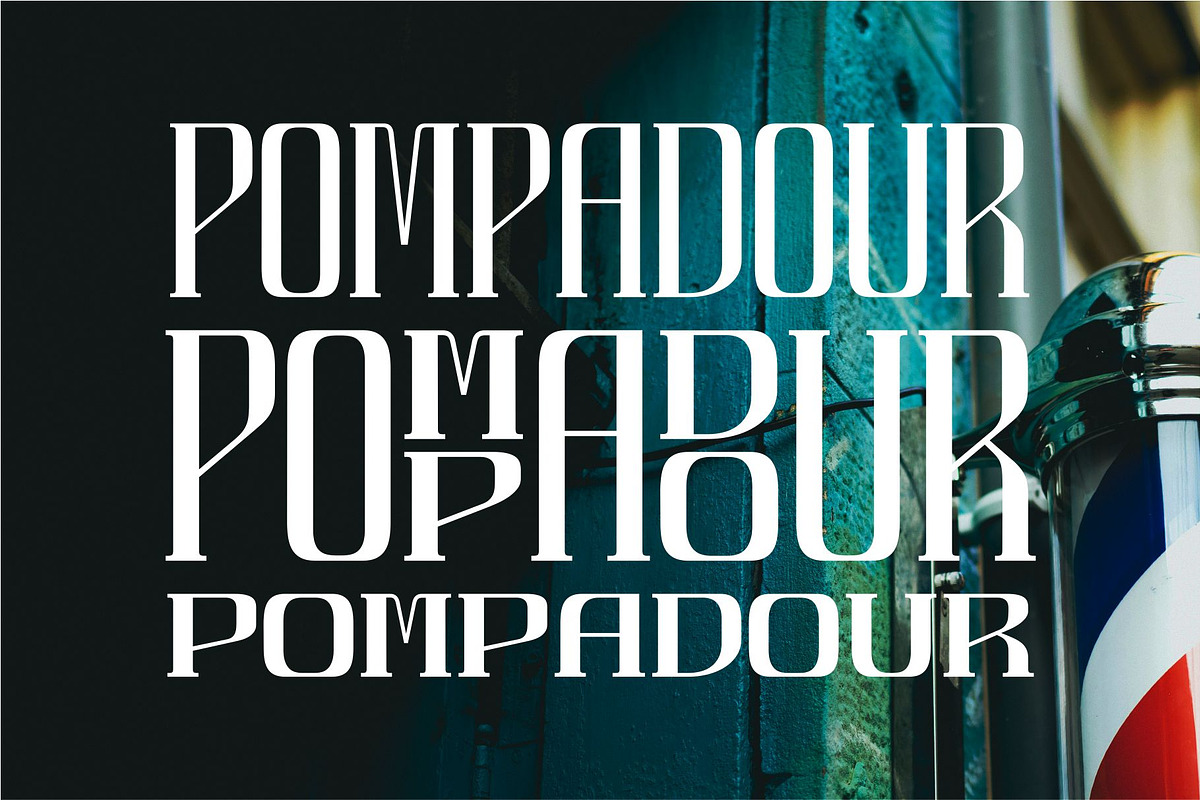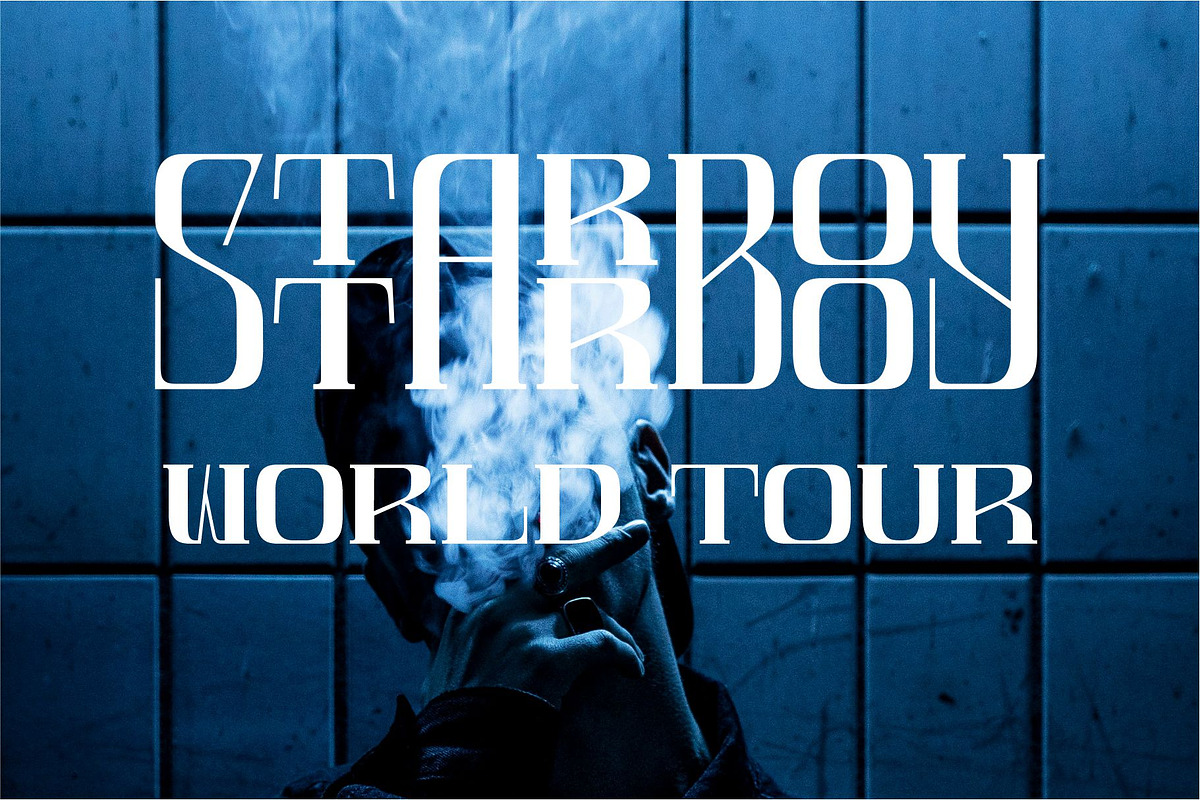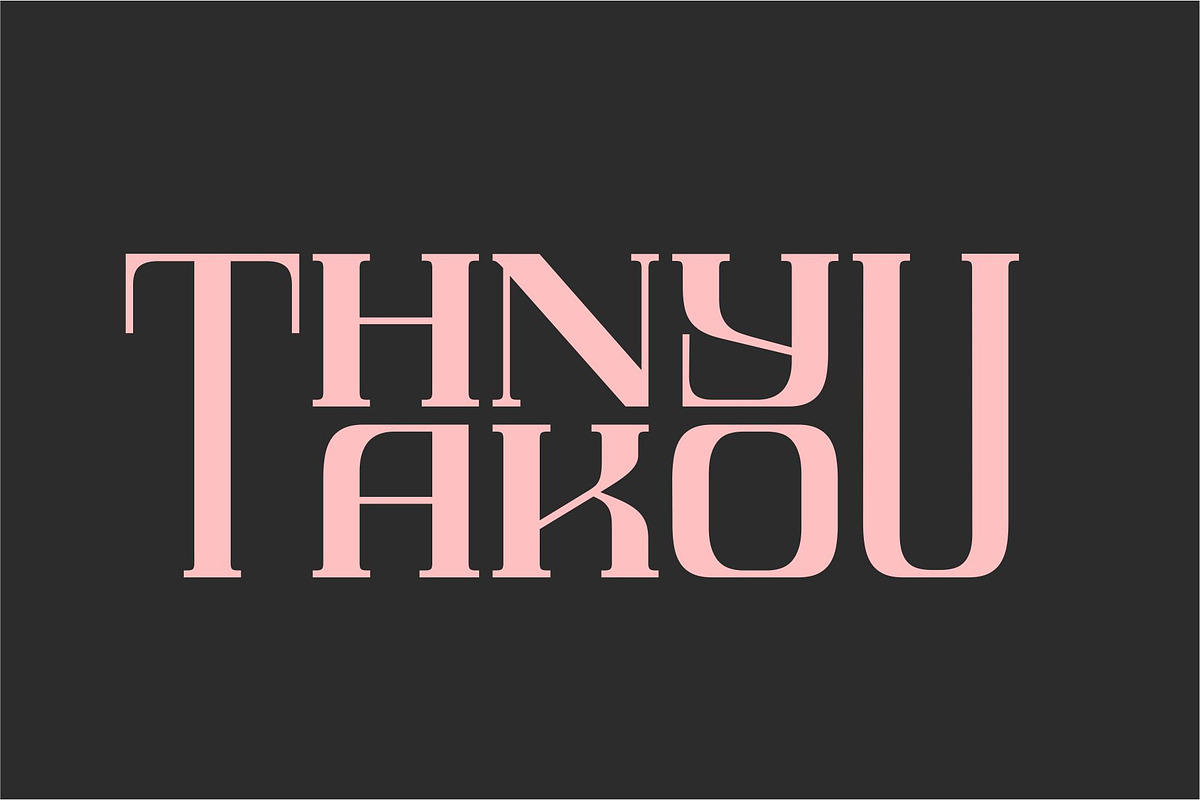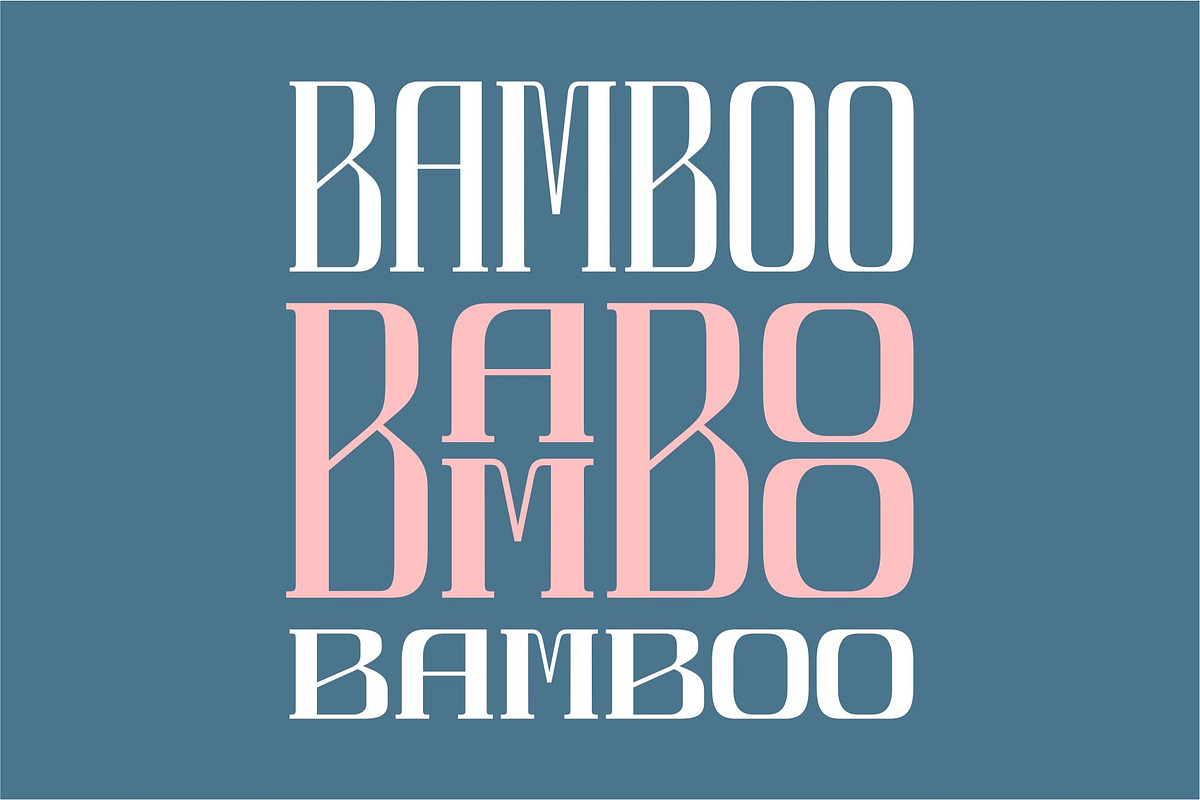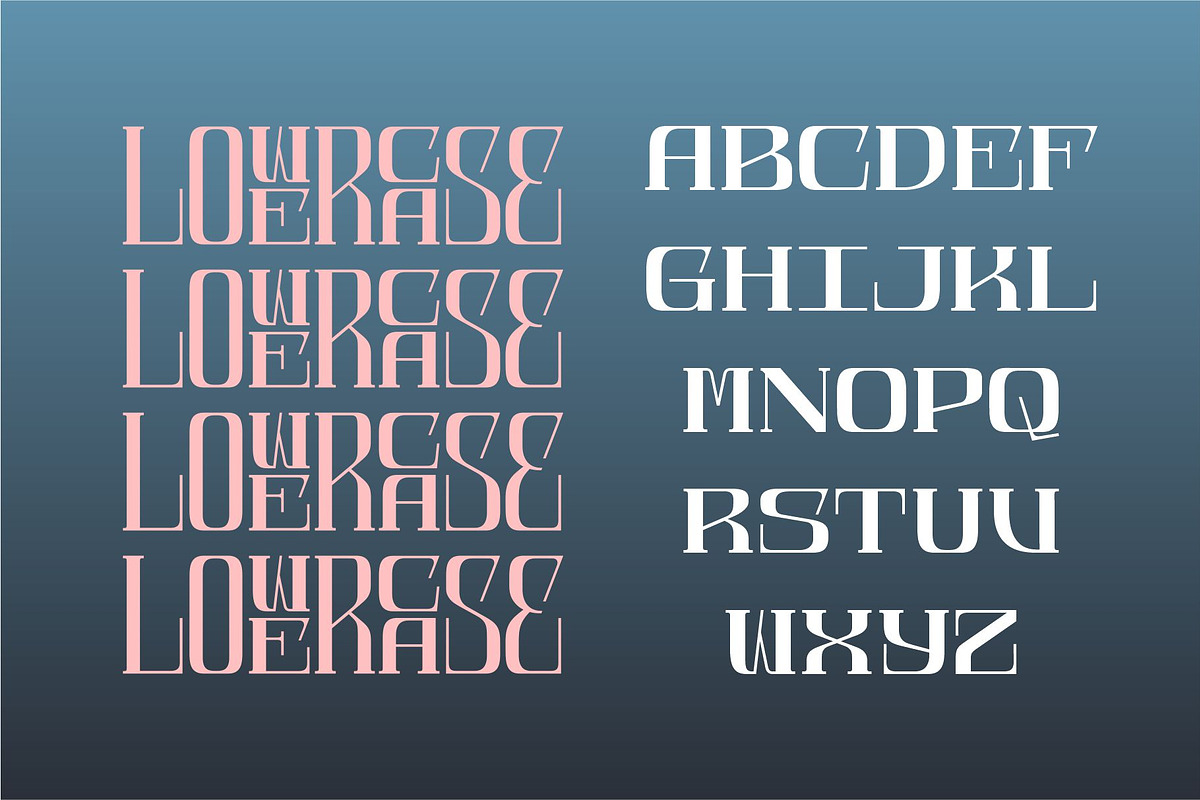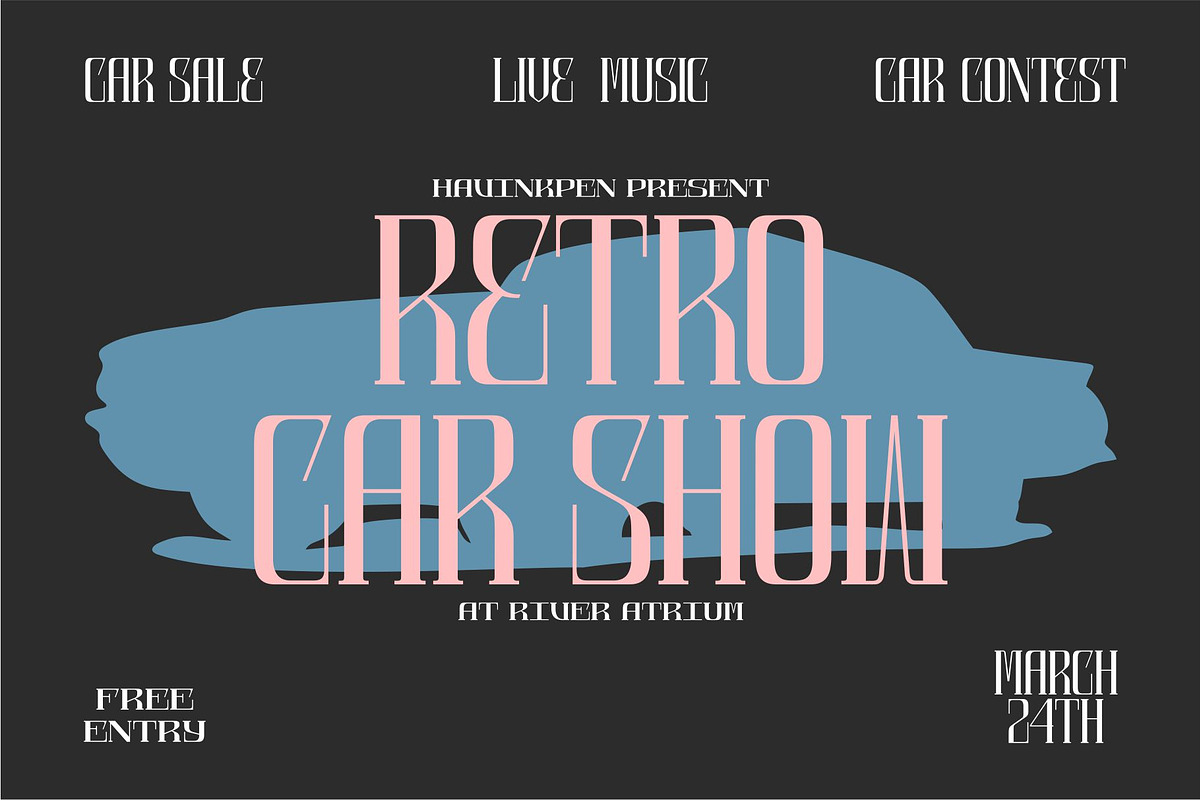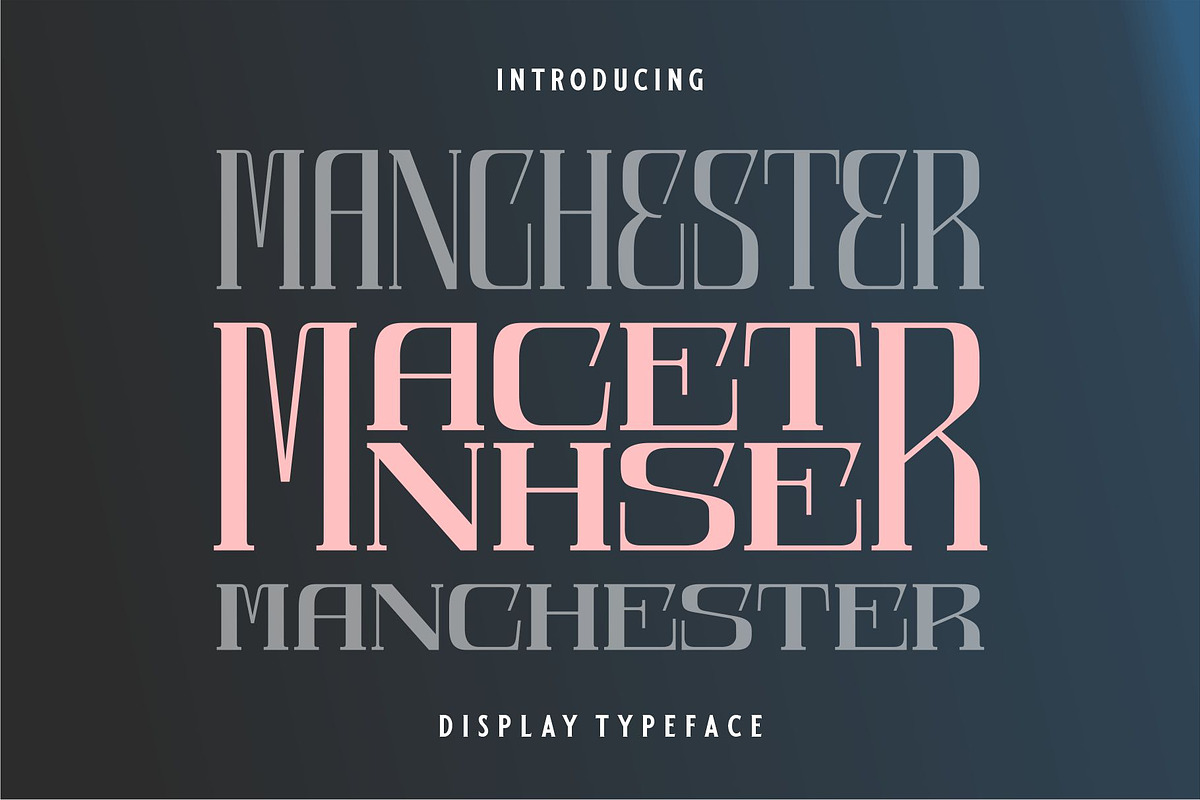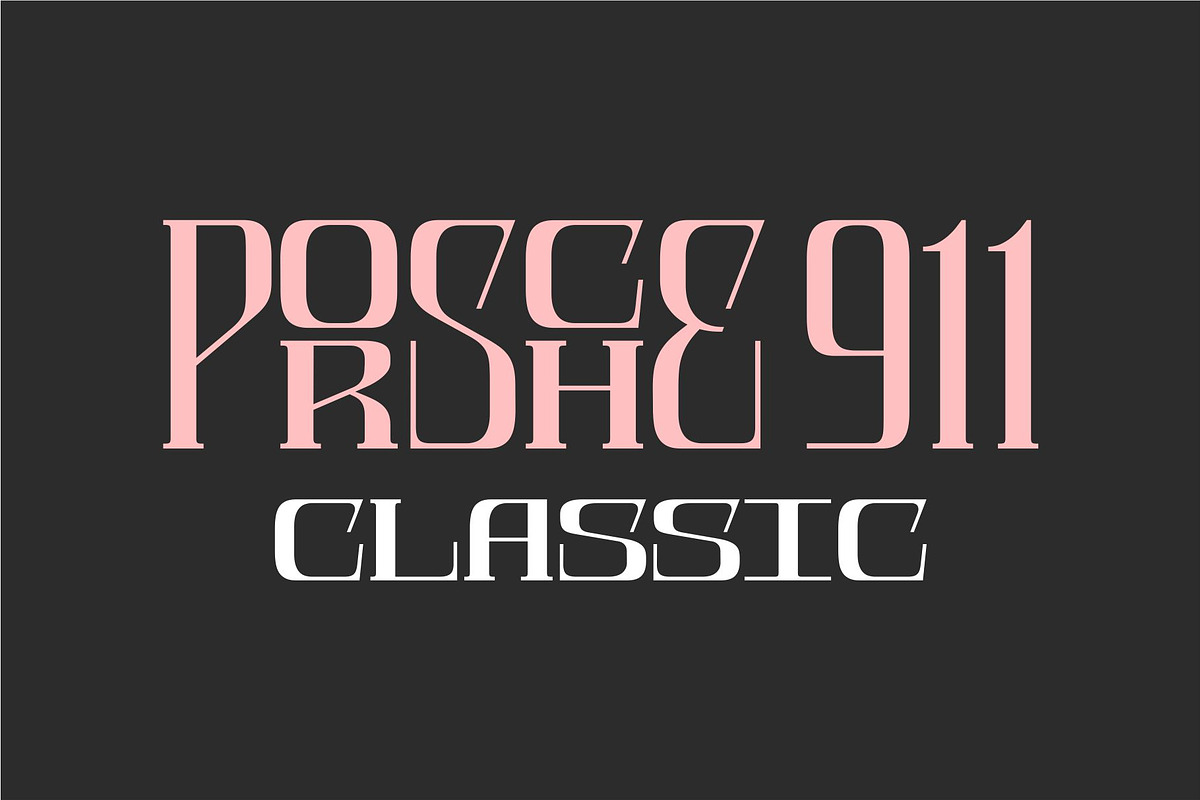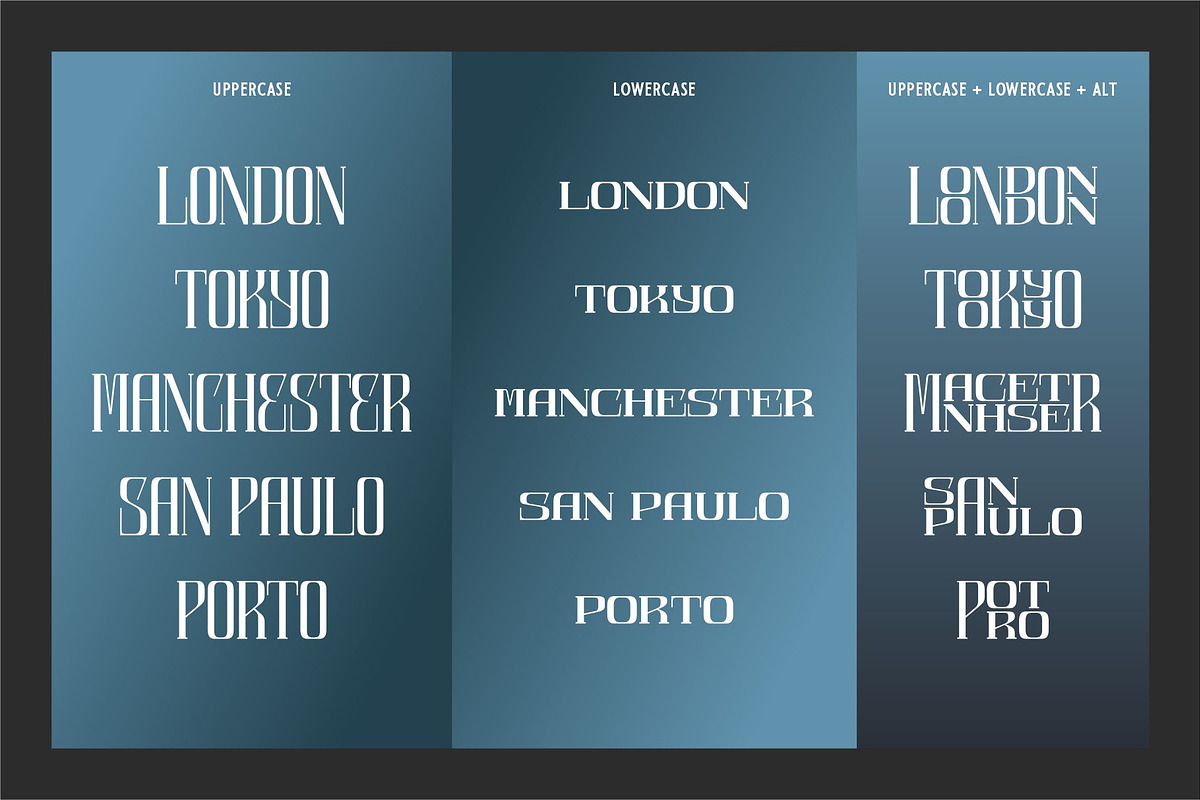
MANCHESTER | Display Typeface
Manchester is a modern typeface that takes a classic style. Designed to give the impression of elegance with a classic feel and have unique alternates to produce stacked letters. Contains uppercase-only characters, all punctuation & numerals. You can use Manchester and get 3 styles in 1 font. Whether you're creating a logo, designing packaging, poster, or working on a book cover, Manchester Typeface will help elevate your work to the next level. Try it out today and see the difference for yourself.